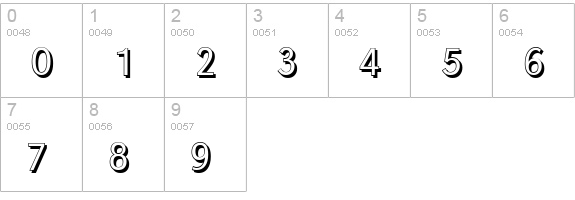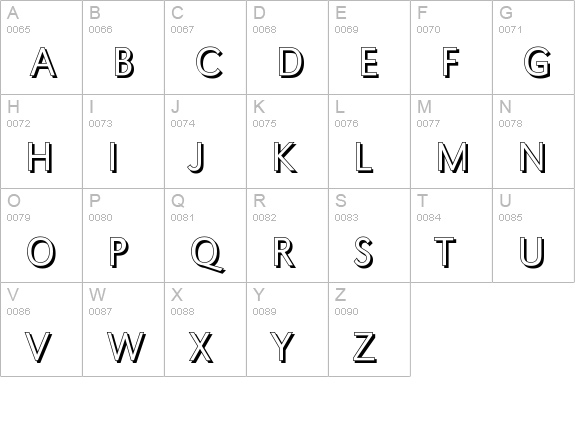
GroteskSh-Light-Regular Font Details
GroteskSh-Light-Regular is a refined, elegant variant in the GroteskSh typeface family \xE2\x80\x94 well suited to elegant body text, refined sub-headings, and luxury branding.
GroteskSh-Light-Regular font is a modern and sleek typeface that exudes elegance and simplicity. With its clean lines and minimalistic design, this font is perfect for creating a sophisticated and professional look in your projects. The light weight of the font adds a touch of delicacy and refinement, making it ideal for use in various design applications. What makes GroteskSh-Light-Regular font even more appealing is that it is available for free download at FontsMarket.com. This means you can easily access and use this beautiful font in your designs without any cost. Whether you're working on a branding project, website design, or any other creative endeavor, GroteskSh-Light-Regular font will add a touch of class and sophistication to your work. Download it now and elevate your designs with this stunning typeface.